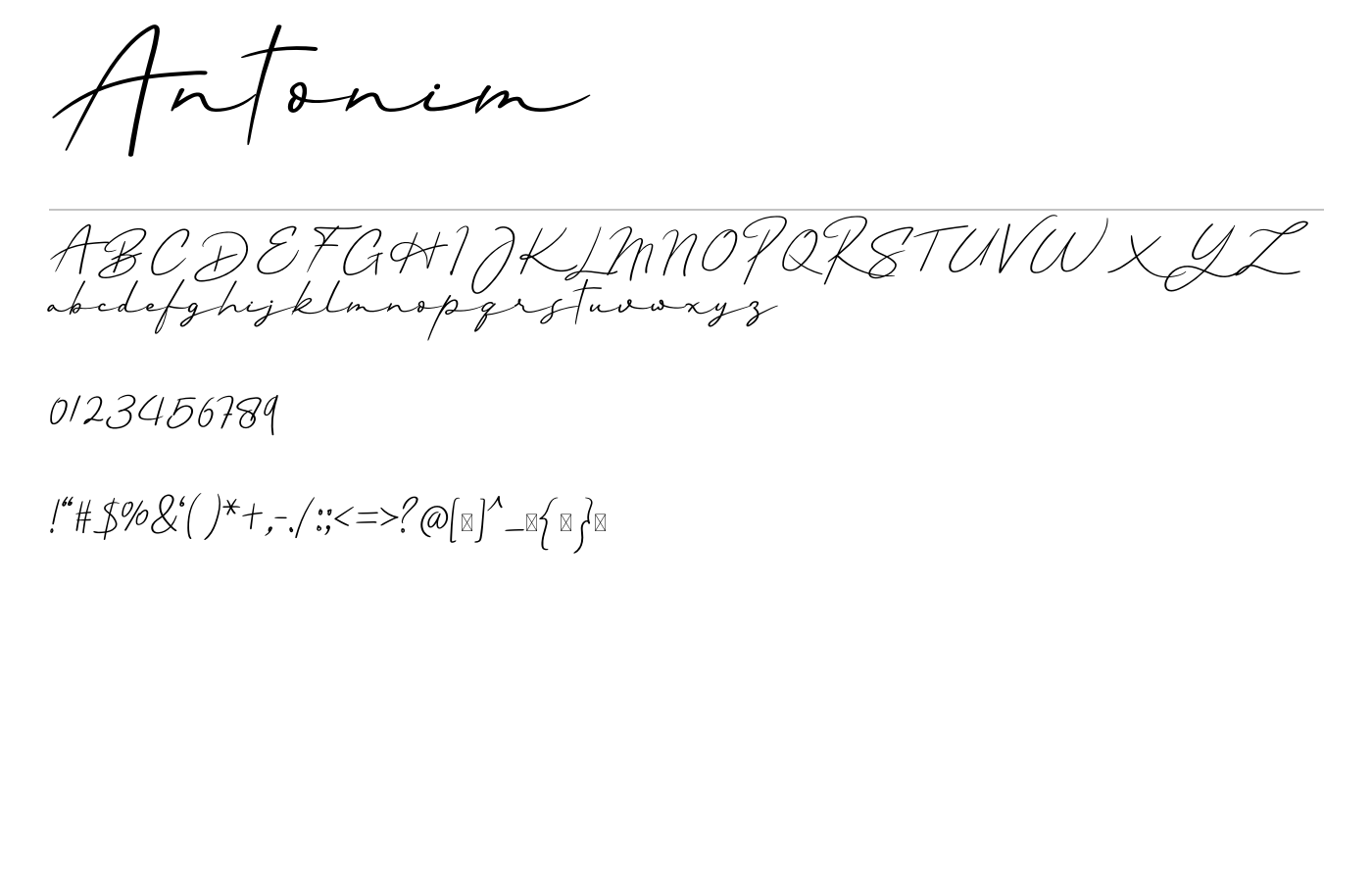
Antonim is a slender, elegant handwritten script font characterized by its delicate, flowing lines and natural, casual style. With its tall x-height, light weight, and smooth cursive strokes, it conveys a personal and sophisticated touch, making it ideal for invitations, branding, and editorial projects that seek a refined yet approachable aesthetic. This font shines in uses where a graceful, intimate feel is desired, such as luxury packaging, fashion logos, or stylish social media graphics.
Antonim Font